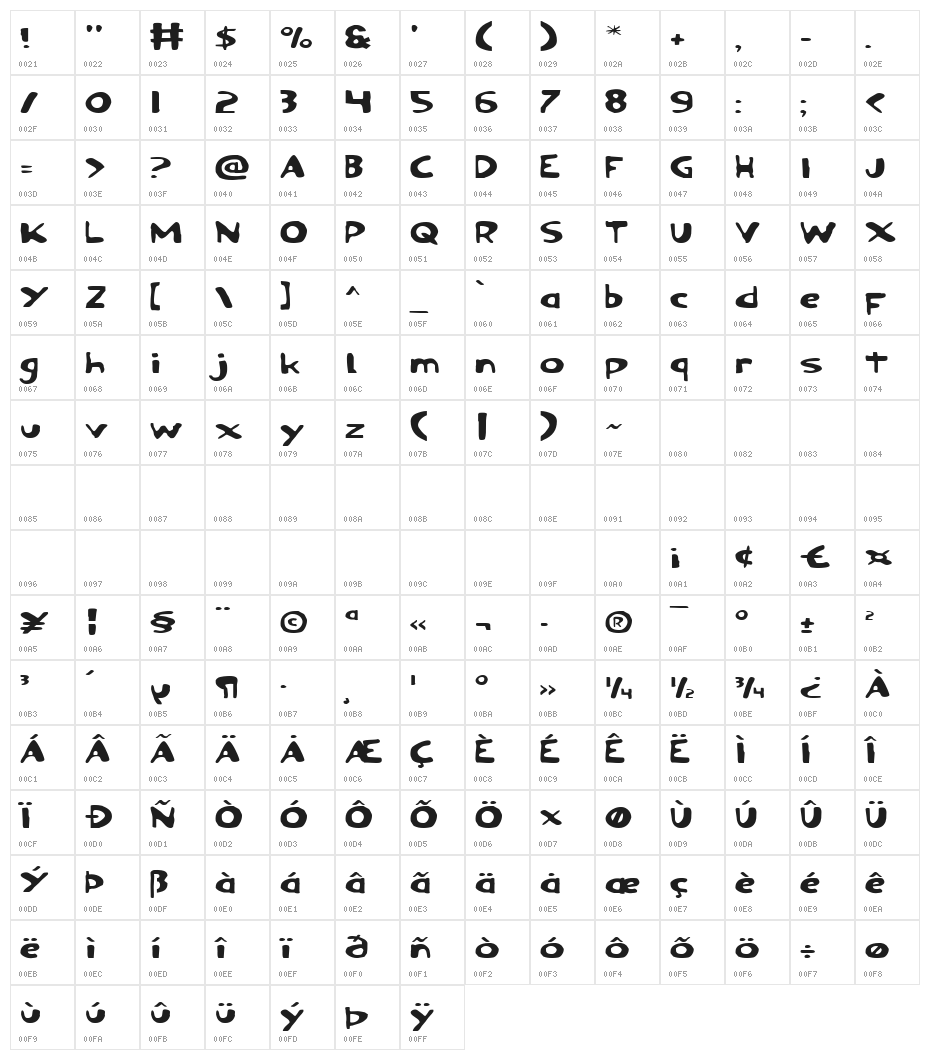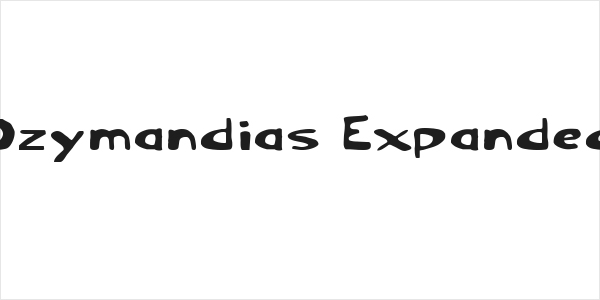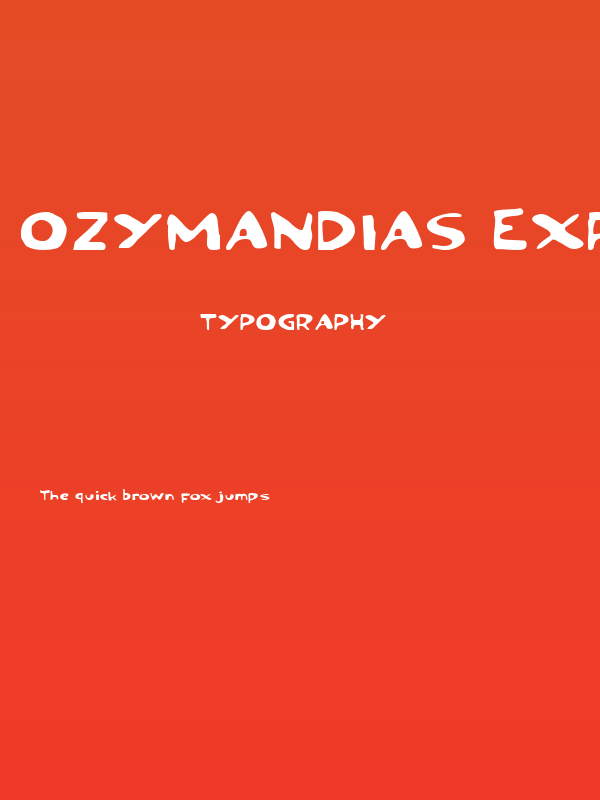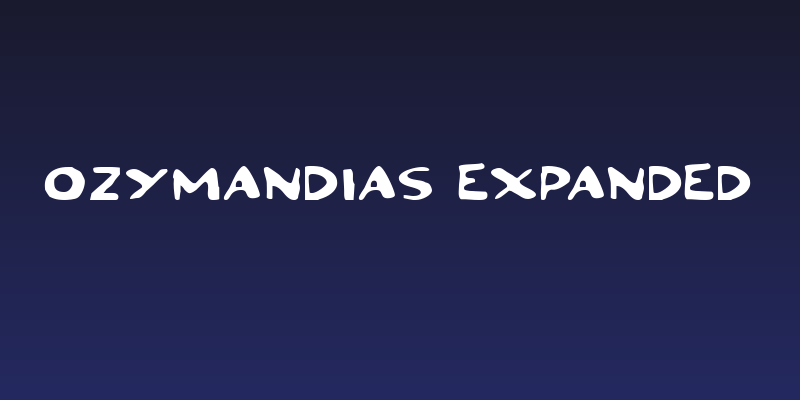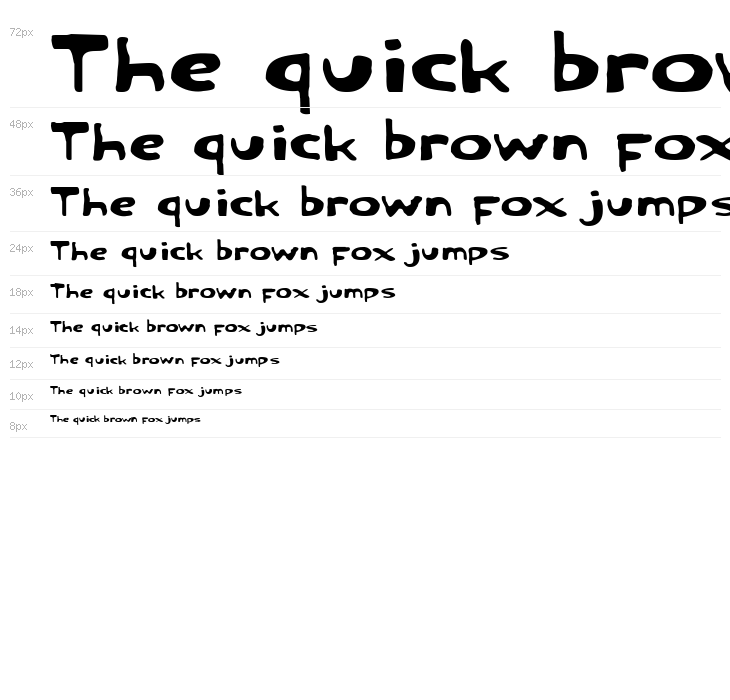
Ozymandias Expanded Font
Ozymandias Expanded Description
This font features a bold and playful design with a hand-drawn aesthetic. The characters are slightly irregular, giving them a whimsical and artistic feel. The uppercase and lowercase letters maintain a consistent style, with rounded edges and a slightly uneven baseline, adding to the casual and friendly appearance. The numbers and special characters follow the same design principles, ensuring a cohesive look across all glyphs. This font's unique style makes it stand out, making it suitable for creative and informal projects.
| Overall Style | Playful, Artistic, Whimsical |
| Proposed Projects | Ideal for children's books, playful branding, creative posters, and informal invitations. |